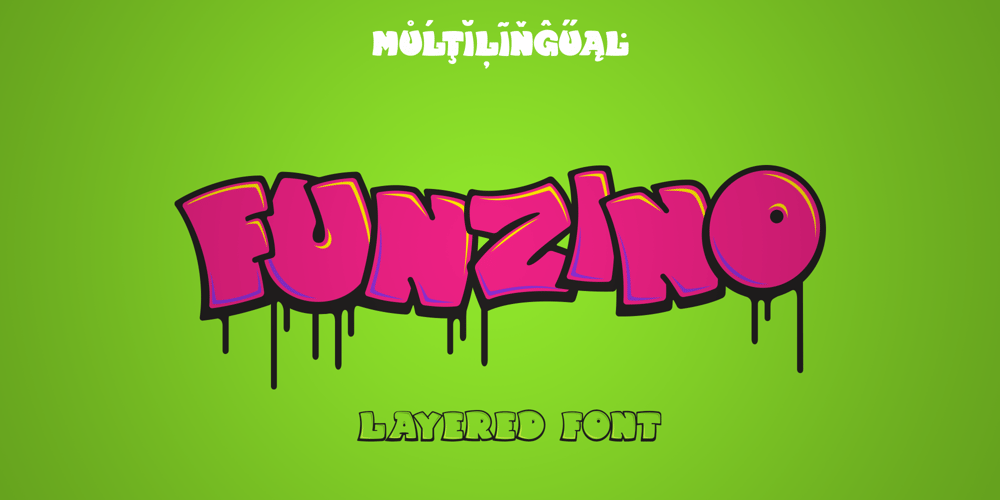
Funzino Font Family was designed by Dmytro Poliakh and published by Sentavio. Funzino contains 5 styles and family package options. Funzino is friendly graffiti style layered font (5 font-layers) designed for such areas as Entertainment, Kids, Prints, Food etc.You may combine these layers to make new and interesting font combinations.Multilingual support (LatinPro & Cyrillic).